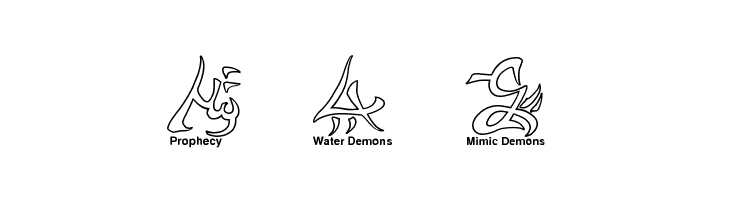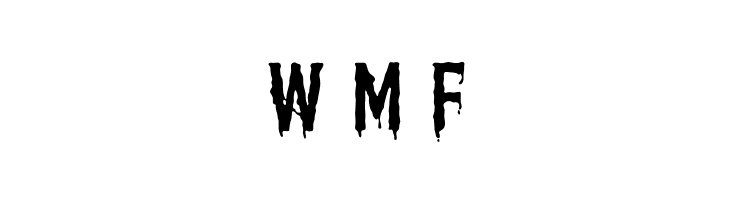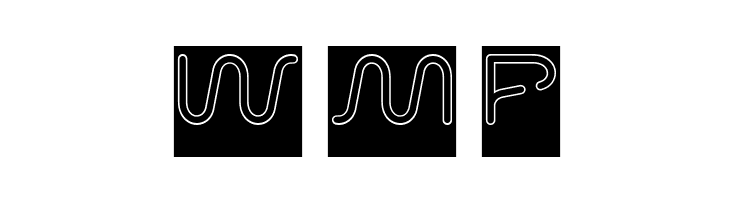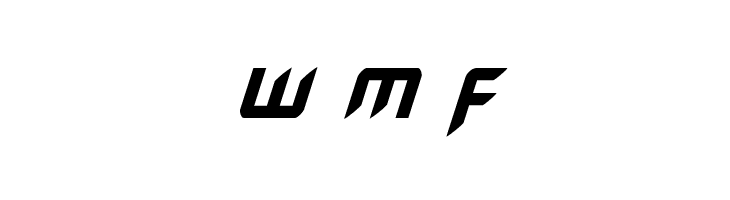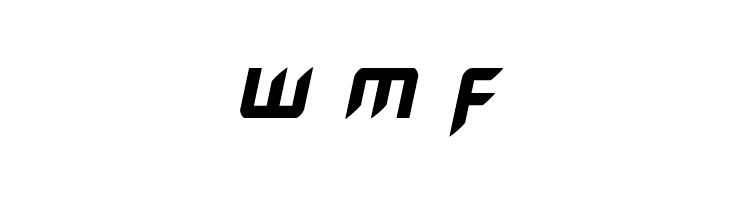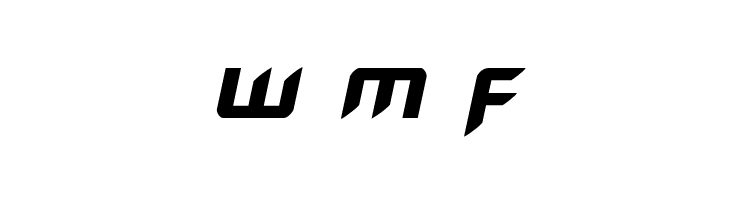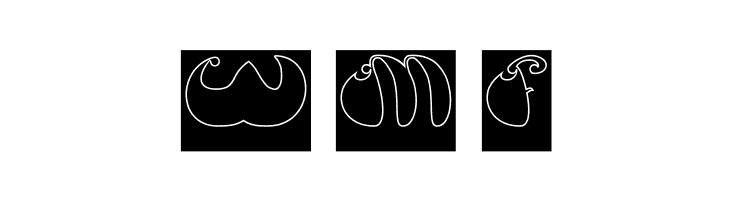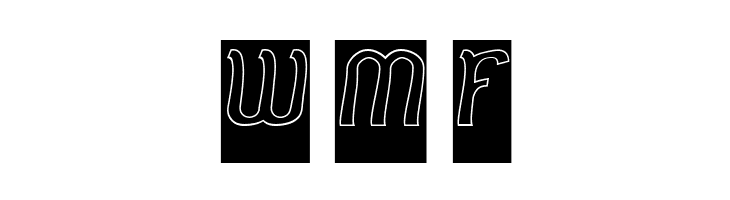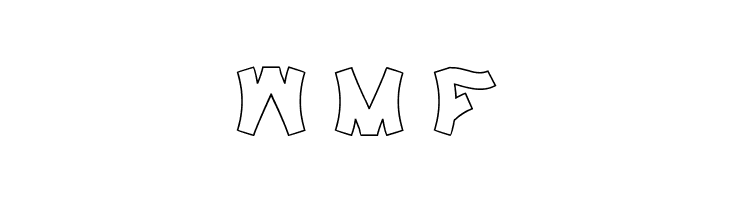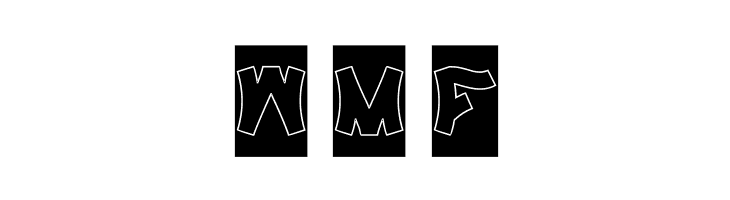
A spooky, hand-drawn font with jagged, elongated characters.
A bold, angular, and italicized font with a futuristic, edgy design.
A lively handwritten font with fluid, energetic strokes and a playful style.
A flowing, cursive font with elegant, sweeping lines and a handwritten appearance.
A playful, handwritten font with bold, whimsical characters.
A bold, angular font with a futuristic and edgy style.
A futuristic, outlined font with geometric precision and smooth, continuous lines.
A decorative font featuring Halloween-themed silhouettes like ghosts and pumpkins.
A dramatic, angular font with a cursive-like, expressive style.
A bold, italic font with sharp, angular edges and a futuristic style.
A bold, angular font with a futuristic, geometric design.
A bold, geometric, and condensed font with a futuristic style.
A bold, geometric font with sharp angles and a futuristic look.
A bold, angular, and futuristic italic font with a geometric design.
A bold, angular, and italic font with a futuristic and expanded style.
A bold, italicized, and condensed font with a modern, angular design.
A bold, angular, and futuristic font with an italicized slant.
A geometric and modern font with architectural elements and artistic flair.
A bold, playful handwritten font with smooth curves and a casual style.
A bold, 3D font with shadow effects, perfect for impactful headlines.
A bold, dripping font ideal for horror-themed designs.
A bold, rounded font with a playful and retro vibe.
A bold, playful script font with smooth, flowing curves.
A bold, jagged font with a spooky, horror-inspired design.
A bold, spooky-themed font with jagged edges and an eerie style.
A spooky, dripping font ideal for horror-themed designs.
A bold, playful handwritten font with dynamic strokes.
A bold, distressed font with a dripping effect, perfect for spooky themes.
A bold, angular gothic-style font with sharp edges and dramatic flair.
A playful, bold outline font with rounded edges and hollow interiors.